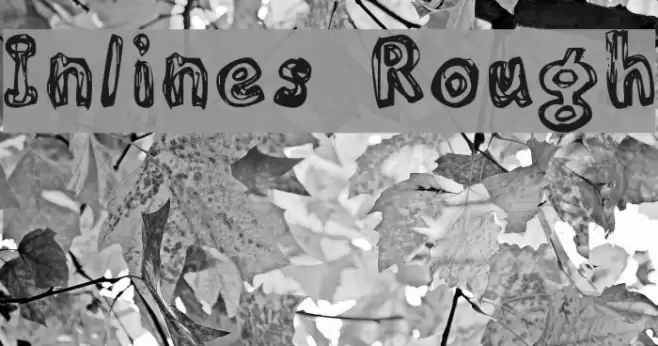
Inlines Rough Font
Inlines Rough Description
This font features a bold, hand-drawn style with a rough, textured appearance that gives it a playful and artistic feel. The characters are outlined with irregular, sketch-like strokes, adding a sense of movement and dynamism. Each letter has a unique, slightly imperfect form, contributing to the overall casual and informal aesthetic. The font maintains a consistent weight throughout, with medium contrast in stroke thickness. Its quirky and creative design makes it ideal for projects that require a fun and engaging visual element.
A bold, hand-drawn font with a rough, textured style and playful character from Uncategorized fonts.
- Proposed Projects: Ideal for children's book covers, creative posters, playful branding, and artistic social media graphics.